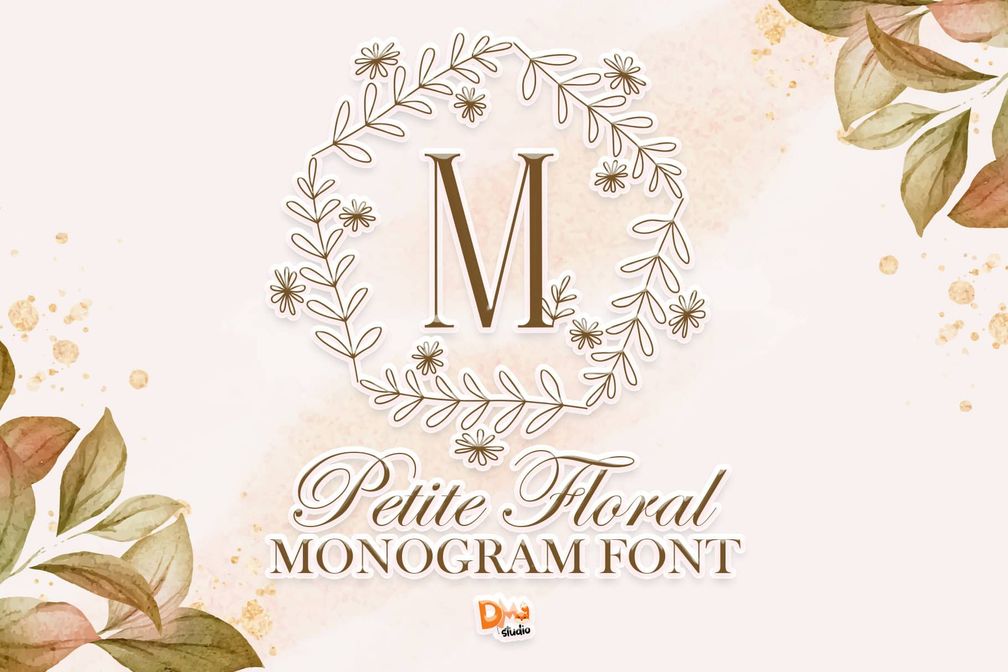
Petite Floral Monogram
Petite Floral Monogram – Elegant & Delicate Monogram Font
Petite Floral Monogram is a beautifully handcrafted monogram font featuring delicate floral embellishments. This elegant typeface is perfect for wedding invitations, luxury branding, personalized stationery, boutique packaging, and artistic designs. Its refined floral details add a touch of sophistication and charm to any project.
• Intricate Floral Monogram Design: Each letter is adorned with delicate floral accents.
• Perfect for Elegant & Luxury Projects: Ideal for wedding stationery, branding, personalized gifts, and upscale packaging.
• Timeless & Ornamental Aesthetic: A sophisticated balance of classic and modern typography.
• Multilingual Support: Includes extended Latin characters for multiple languages.
• Complete Character Set: Includes uppercase, lowercase, numbers, punctuation, and symbols.